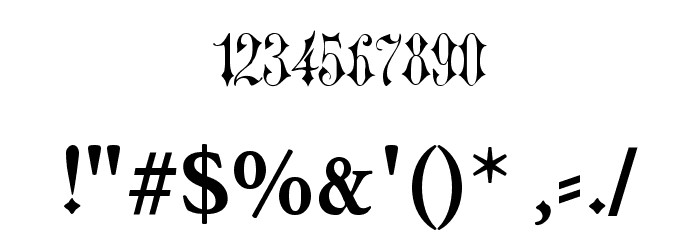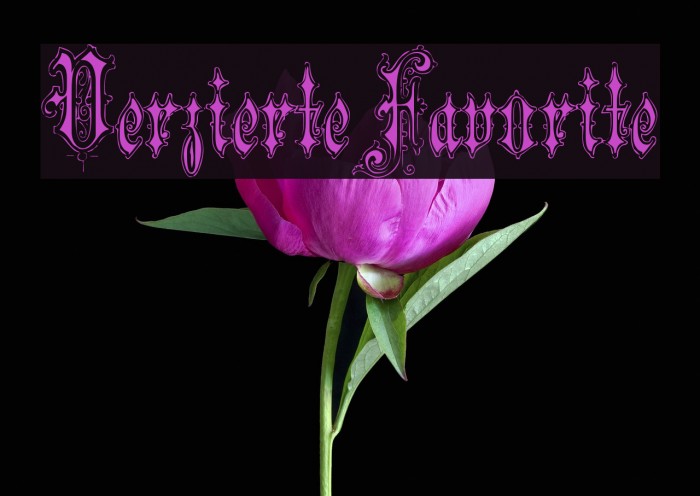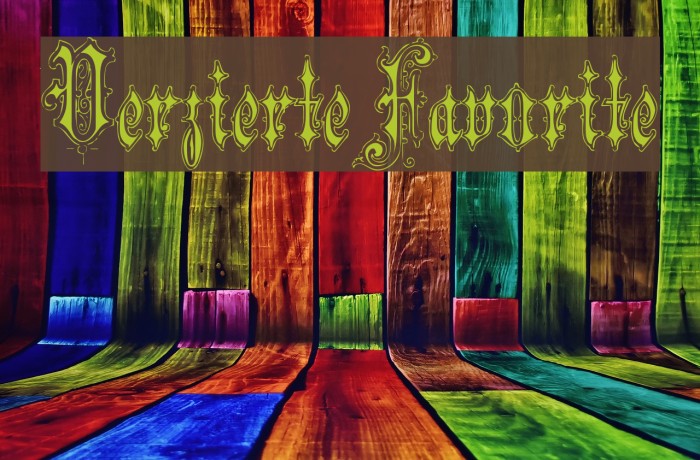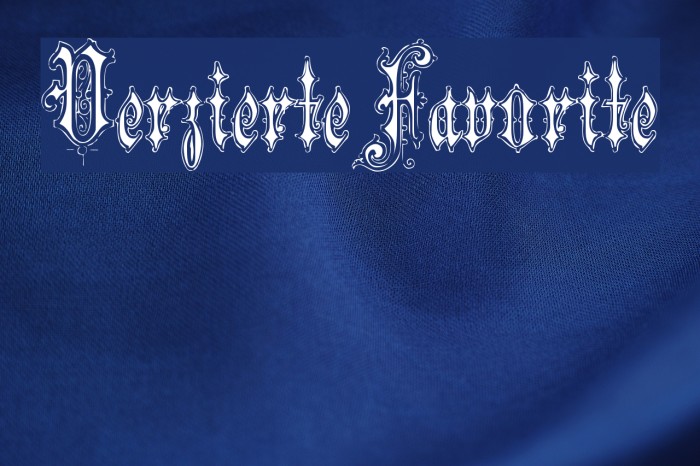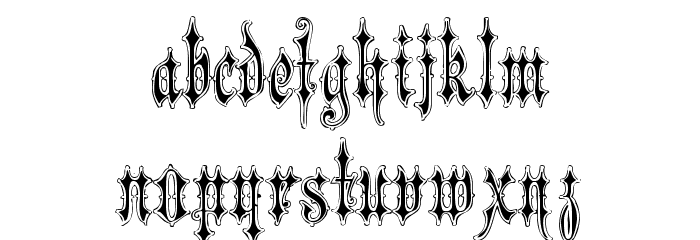
VerzierteFavorite Font
This font is an ornate and decorative typeface with intricate details and embellishments reminiscent of Gothic or medieval script. The characters are highly stylized with elaborate flourishes and sharp, angular lines that give it a dramatic and historical appearance. Each letter is unique, featuring intricate loops and swirls that add to its complexity. The font has a strong presence and is designed to capture attention with its bold and artistic style. It is suitable for projects that require a touch of elegance and sophistication, such as invitations, certificates, or branding that aims to convey a sense of tradition and grandeur.
An ornate, Gothic-style decorative font with intricate details and flourishes.
• Proposed Projects: Ideal for wedding invitations, historical-themed branding, certificates, or decorative posters.
• Category: Blackletter
• Contrast: High
• Overall Style: Vintage
• Use Case: Logos, Headlines, Decorative text